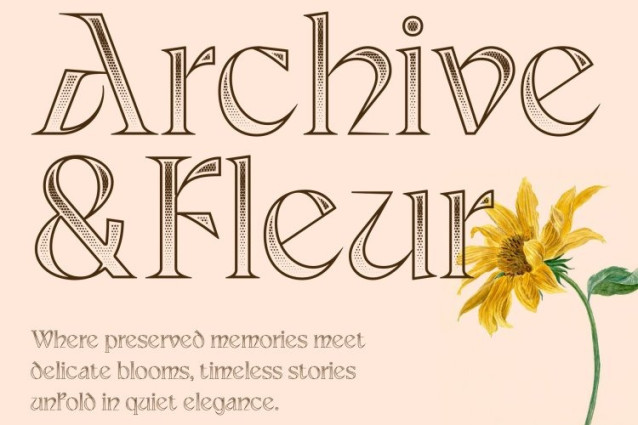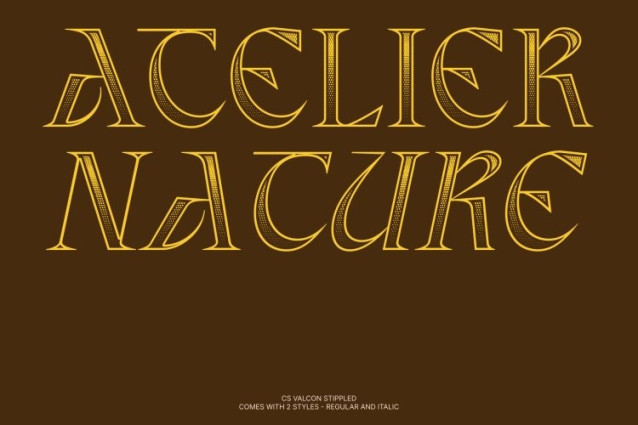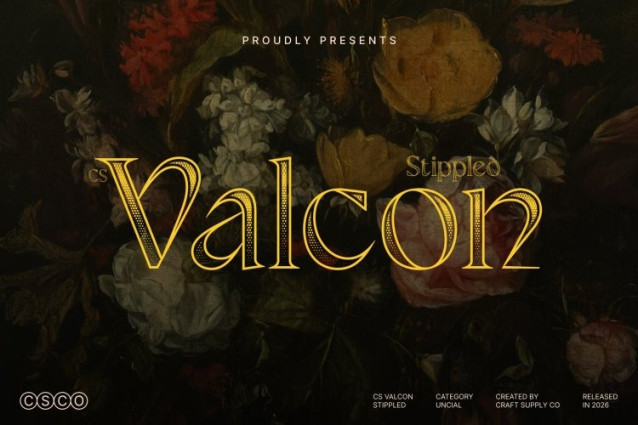
CS Valcon Stippled Font
CS Valcon Stippled Font is a classic uncial display serif font inspired by the artistry of medieval handwriting. Its rounded letterforms and smooth flowing structure reflect the warmth and elegance of traditional manuscript lettering. Enhanced with a stippled texture, the font gains a subtle dotted surface that adds depth and a handcrafted engraved appearance, reinforcing its historical charm and artistic presence.
Artful Letterforms with Decorative Detail
The design of this font features gentle curves and balanced proportions that define the beauty of uncial typography. Subtle decorative elements enrich the letterforms while preserving their graceful flow. The stippled effect further enhances the design by introducing delicate texture, giving the characters a refined and visually layered quality.
Historic Atmosphere with Refined Clarity
While rooted in historical calligraphy, this font maintains a balanced structure that keeps the text clear and elegant. Its combination of classic uncial forms and textured detailing creates typography that feels sophisticated, timeless, and expressive.
Perfect for Elegant and Heritage-Inspired Designs
This is ideal for formal invitations, book covers, literary publications, editorial layouts, and heritage branding. By blending medieval inspiration with a textured stippled finish, the font delivers a refined typographic voice that communicates tradition, elegance, and artistic craftsmanship.